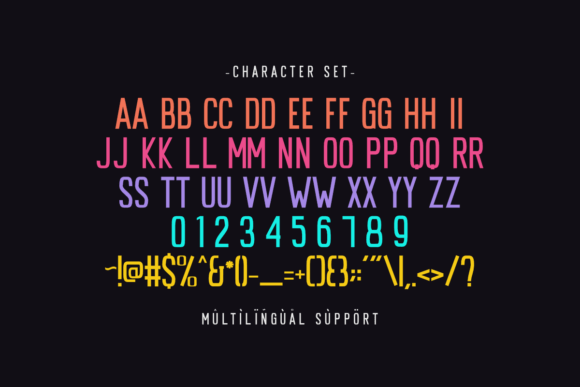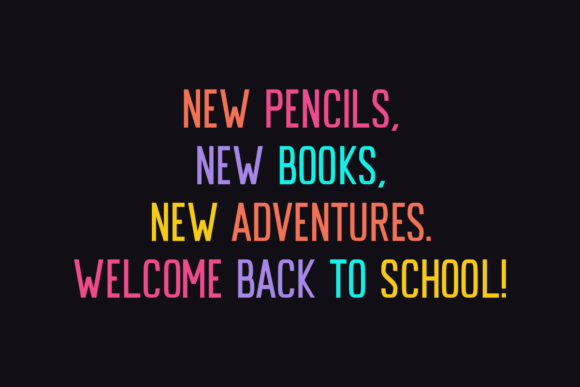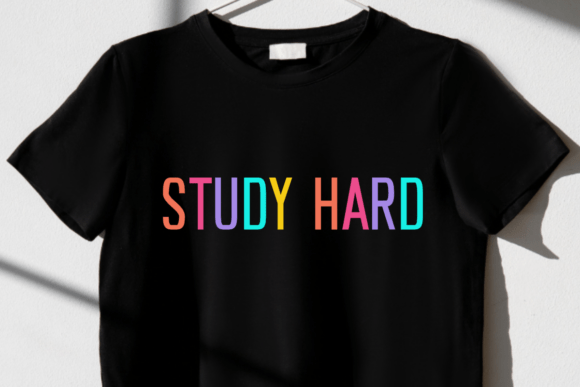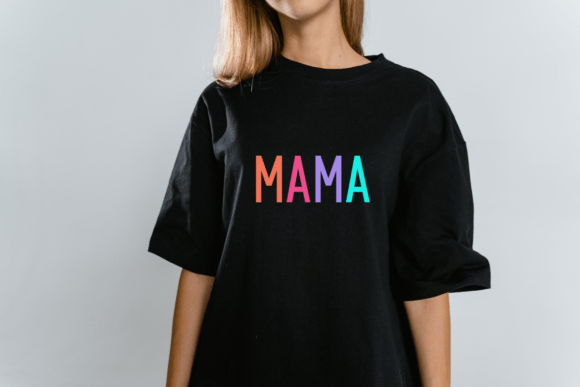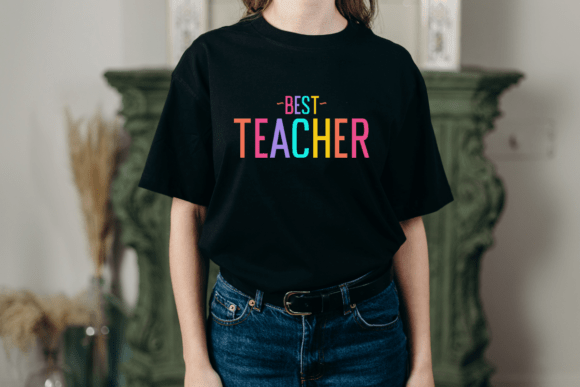
Introduction to Julyteen Font
Julyteen is a bold and modern sans serif font that brings vibrant energy and strong character to any design, perfect for Print On Demand creators, sublimation designers, and Cricut crafters.
With clean lines and striking letterforms, this typeface is designed to make your quotes, t-shirts, tumblers, and posters pop with pride and confidence Whether youโre creating colorful Juneteenth statements, empowering messages, or high-impact commercial designs, Julyteen ensures clarity, boldness, and easy cutting with Cricut and Silhouette.
Key Features of Julyteen Font
Why Choose Julyteen Font?
Julyteen Font offers exceptional quality and versatility, making it a valuable addition to your design toolkit. Whether you’re creating for personal projects or commercial use, Julyteen Font delivers professional results.